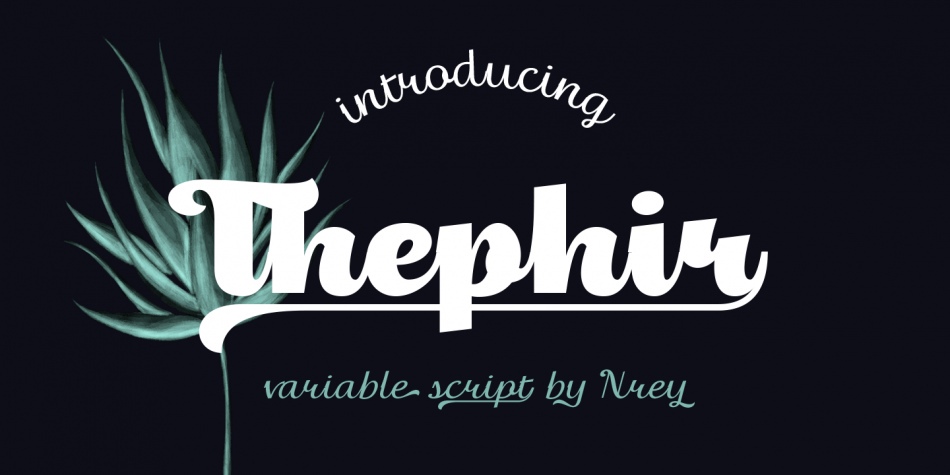
Thephir Font
Thephir Font is perfect for luxury fashion branding, premium beauty campaigns, sophisticated lifestyle marketing, elegant jewelry packaging, upscale boutique signage, refined perfume branding, high-end wellness centers, and distinguished luxury service communications.
What makes Thephir Font exciting is its mysteriously elegant character that embodies sophisticated allure and refined luxury through gracefully crafted letterforms that seem to whisper secrets of timeless elegance and exclusive sophistication. The font features flowing curves with subtle luxurious details that create an atmosphere of refined mystery and sophisticated charm, evoking the kind of understated elegance that defines truly premium brands. Its enigmatic aesthetic and luxury appeal make it perfect for brands that want to communicate exclusive sophistication, mysterious allure, and the kind of refined elegance that attracts discerning customers while creating memorable experiences that celebrate the beauty of sophisticated mystery and luxury refinement.
Thephir Font family includes various elegant weights such as Light, Regular, Medium, and Bold variations, often featuring sophisticated stylistic alternates and luxury decorative elements. The family may include refined symbols, mysterious ornaments, and elegant ligatures that enhance the font's sophisticated aesthetic, providing designers with comprehensive options for creating luxurious typographic compositions that honor the art of refined elegance and sophisticated luxury.
This mysteriously sophisticated typeface has gained recognition among luxury brands and premium lifestyle companies seeking authentic elegant typography solutions that reflect luxury values and refined sophistication. Thephir Font Free Download provides an excellent opportunity to embrace this elegant font before investment. The font's character set includes luxury symbols and sophistication-inspired glyphs that work perfectly for high-end lifestyle and luxury industry applications. Whether you're designing for luxury fashion houses, premium beauty brands, or sophisticated lifestyle services, Thephir Font delivers the refined elegance your project requires. Its versatile nature makes it suitable for various luxury applications including upscale hotels, premium spas, luxury jewelry brands, and sophisticated lifestyle companies, ensuring your typography choices communicate mysterious elegance and luxury sophistication while creating memorable brand experiences that celebrate the timeless appeal of refined luxury and the sophisticated allure that defines premium brand experiences through its distinctively elegant and authentically sophisticated visual character.